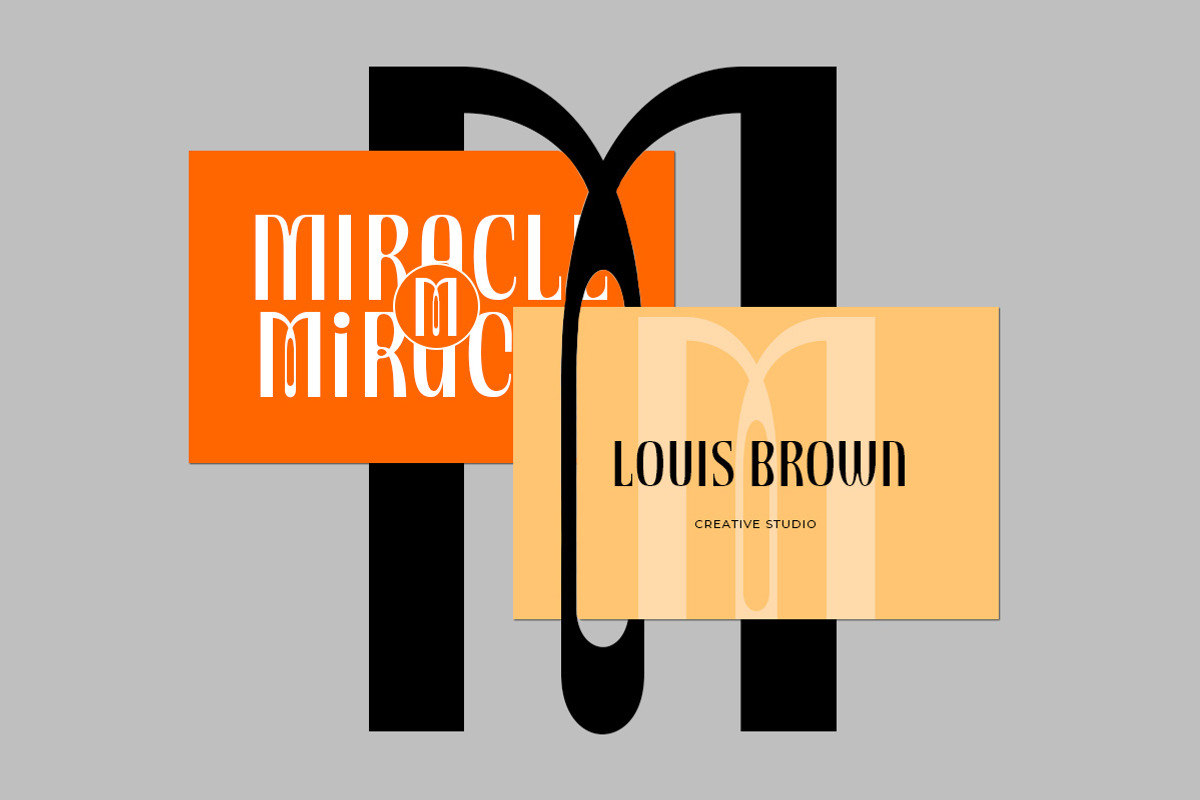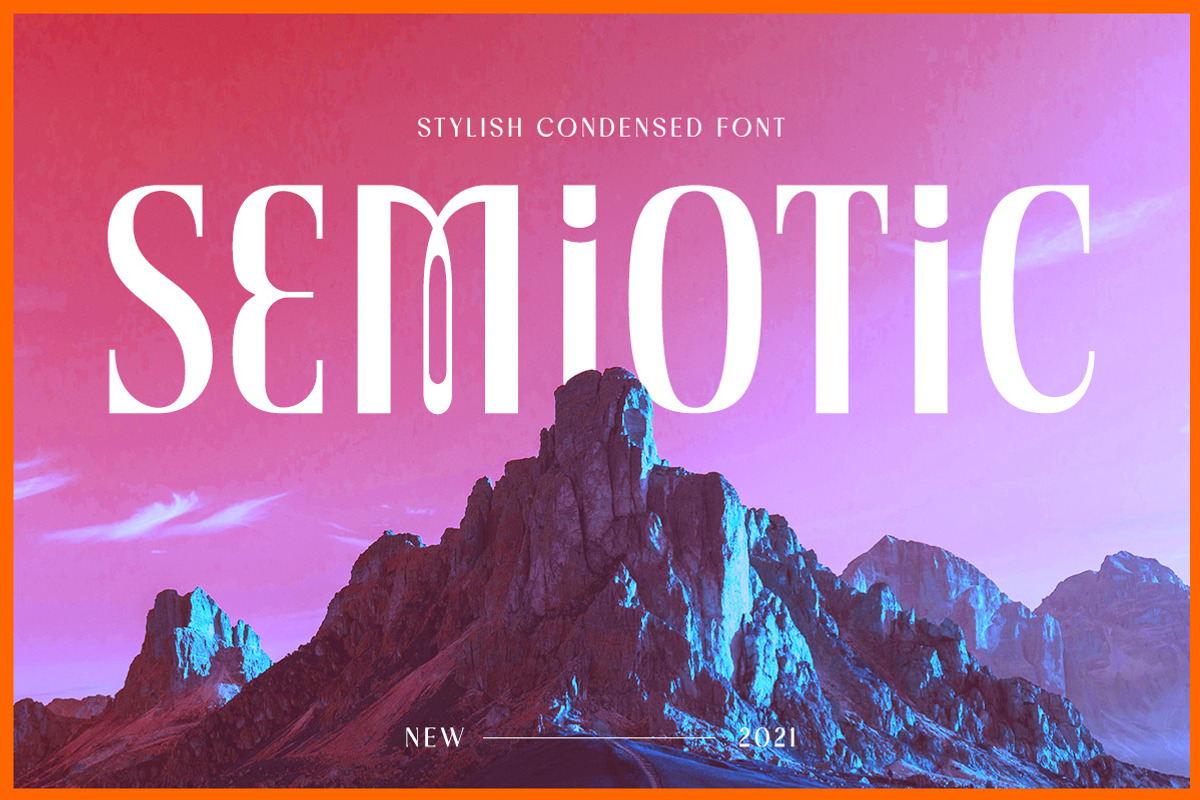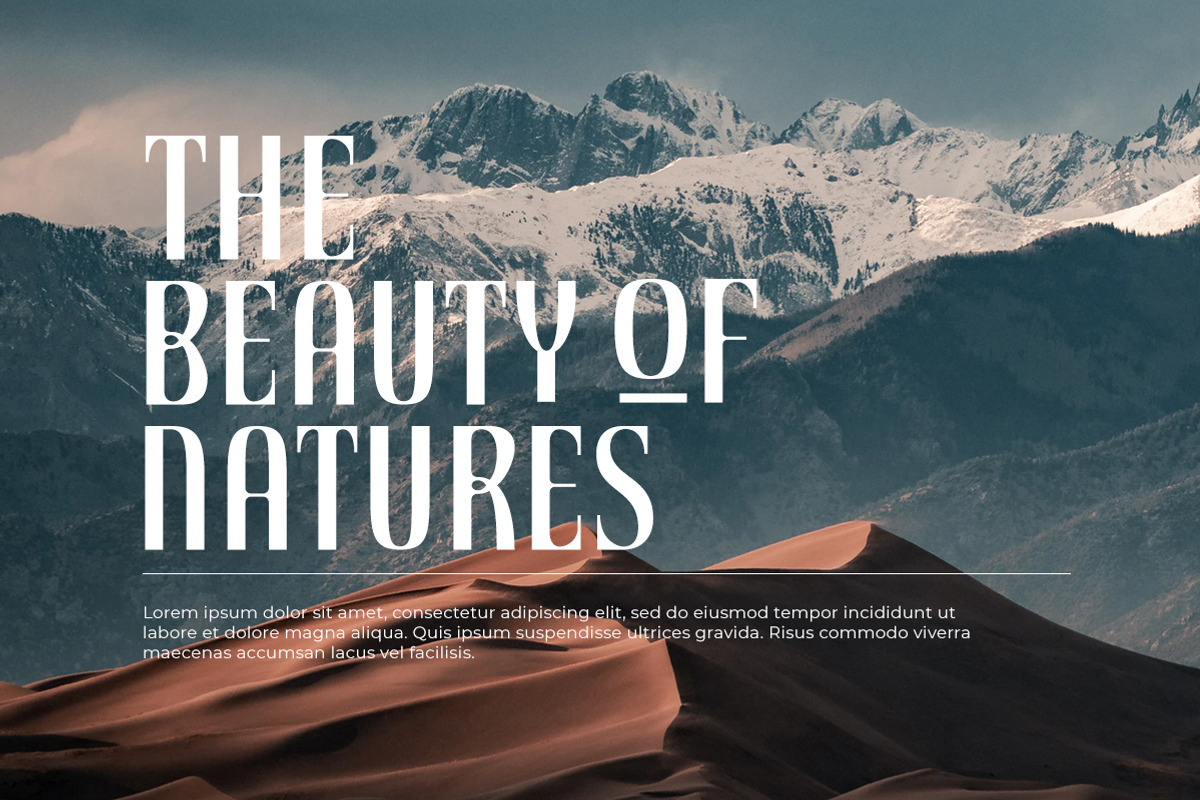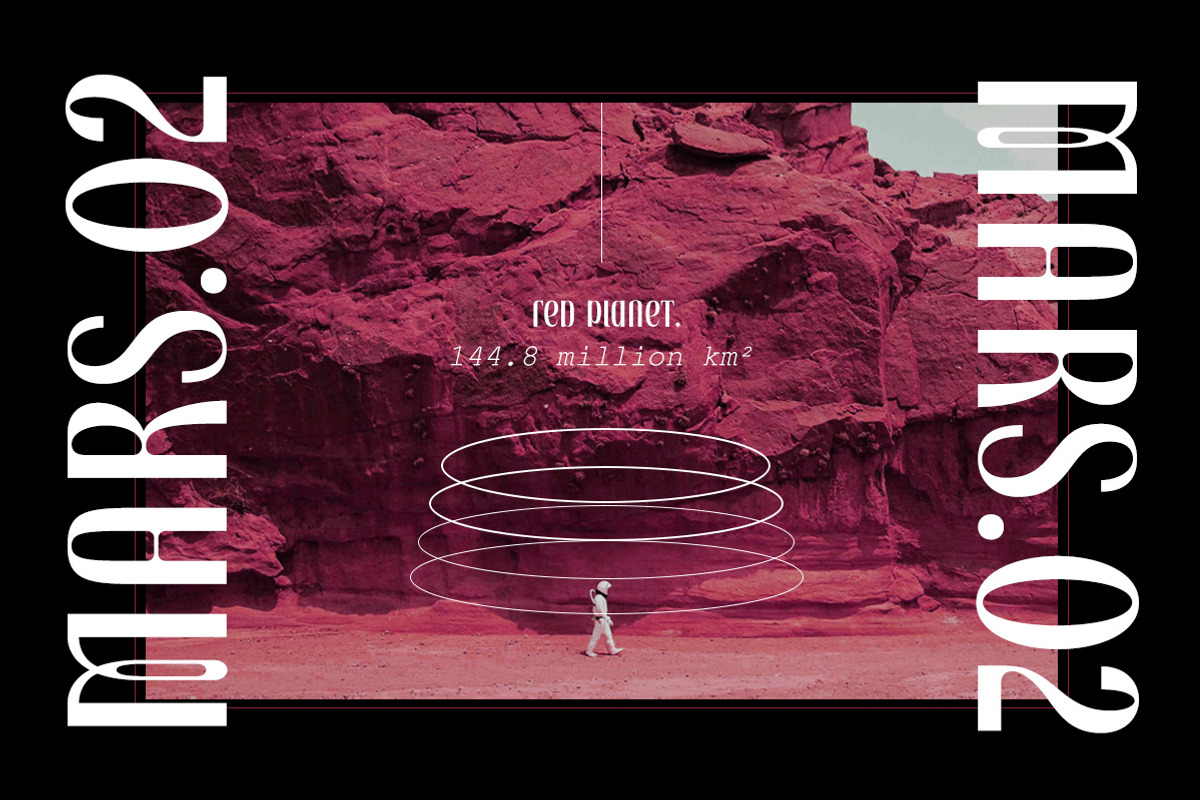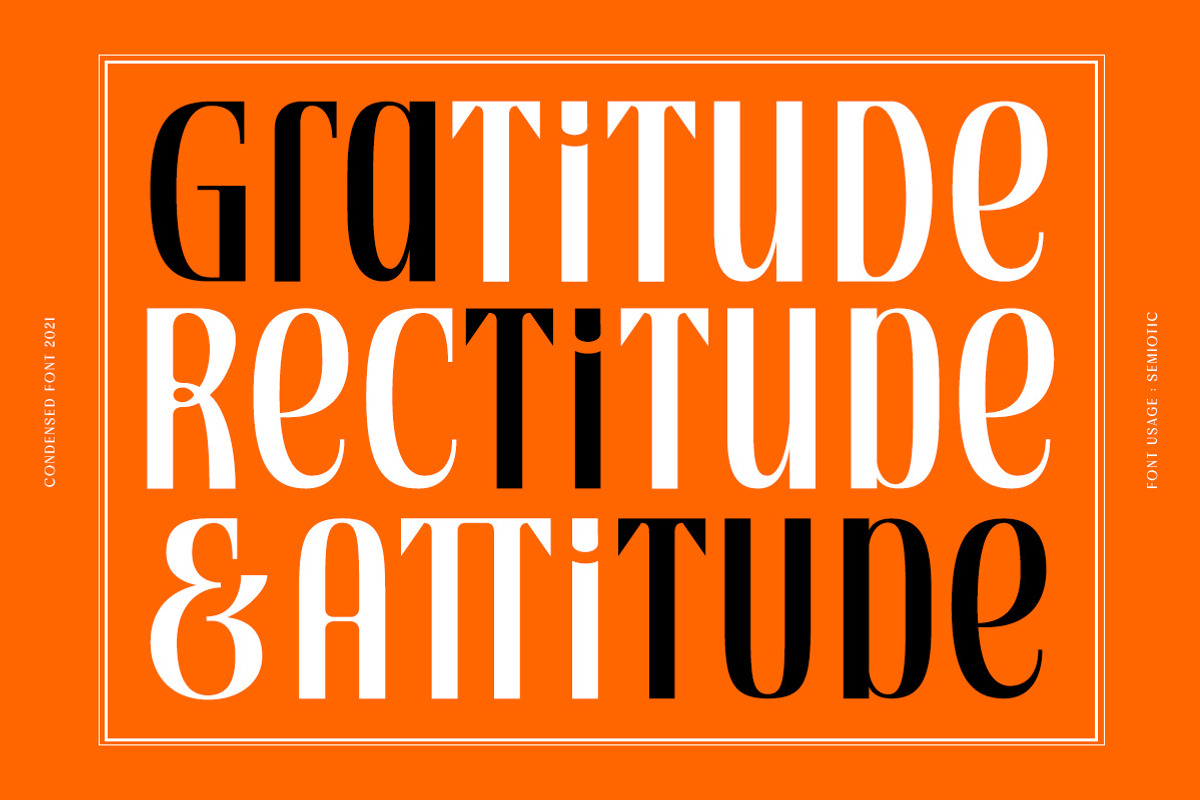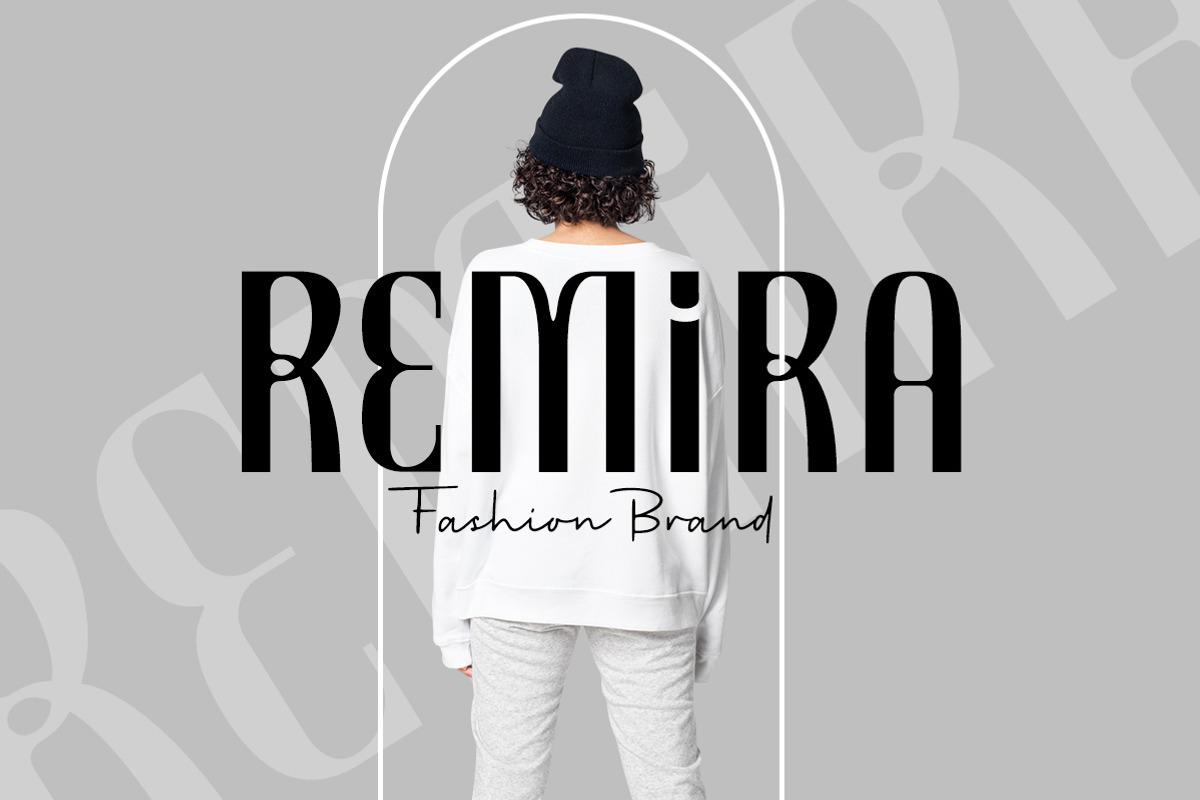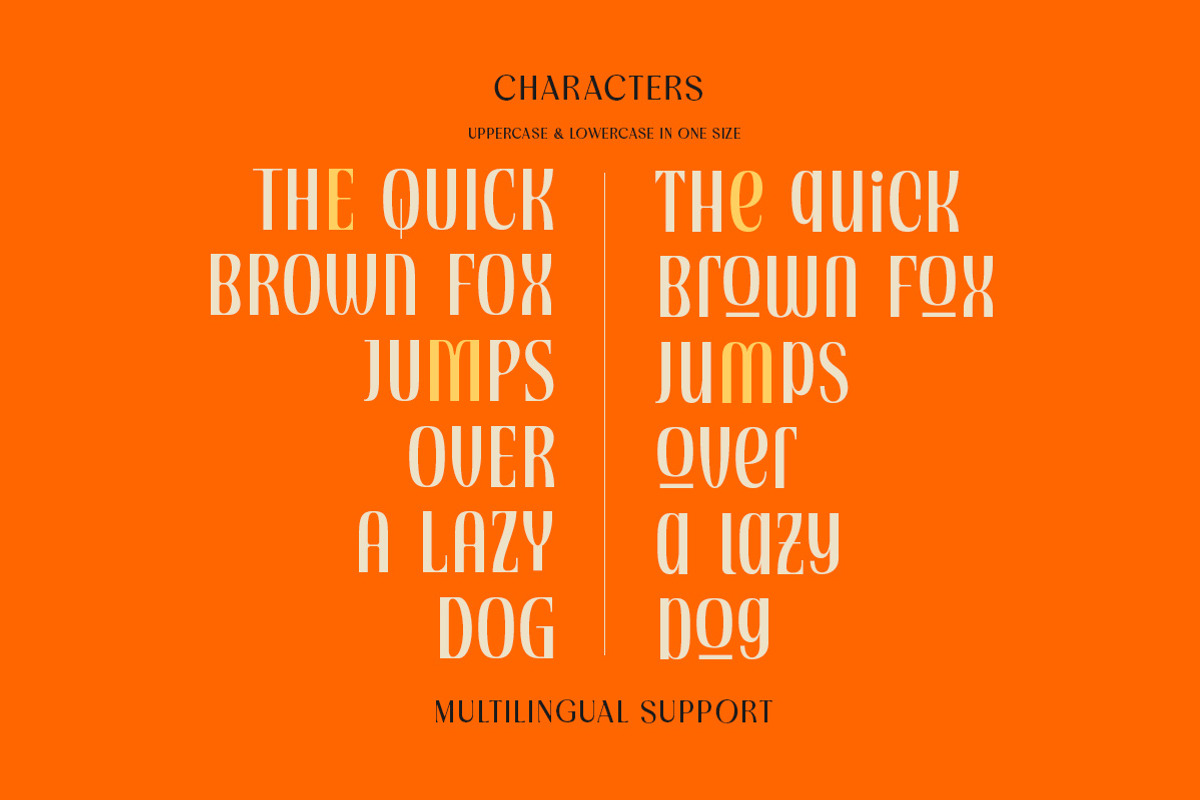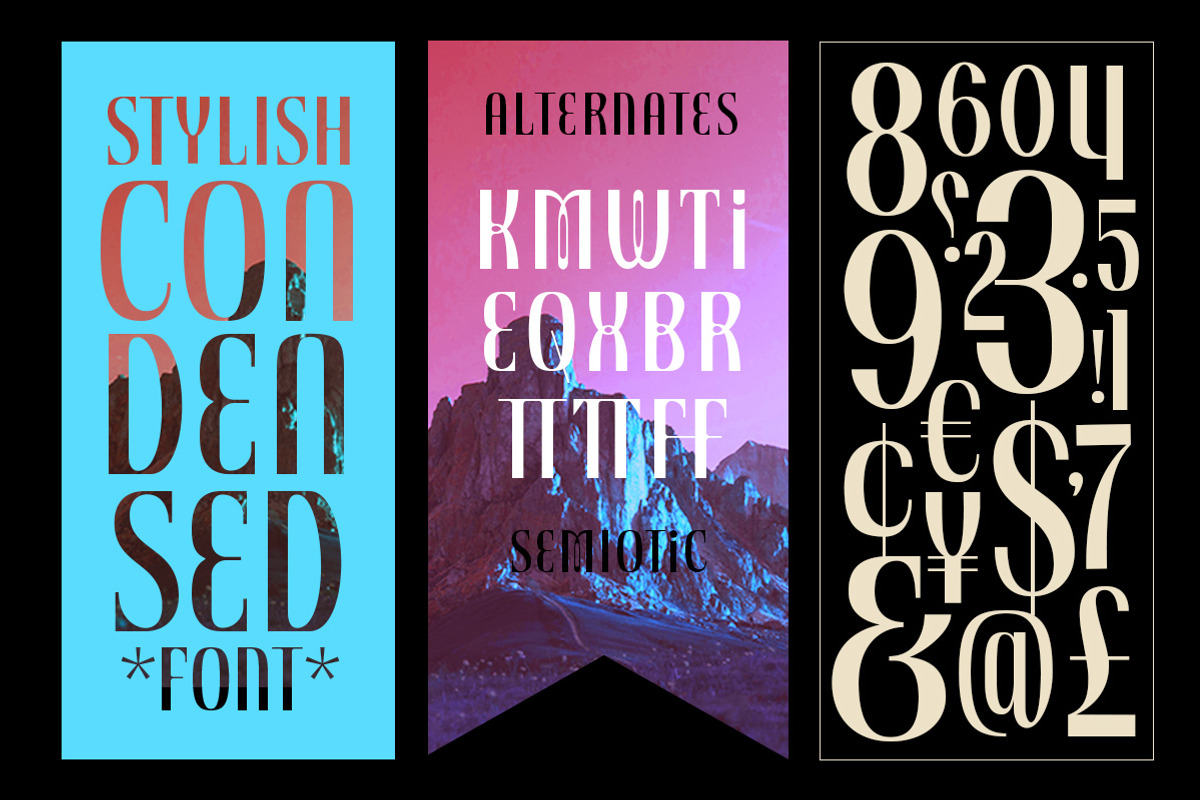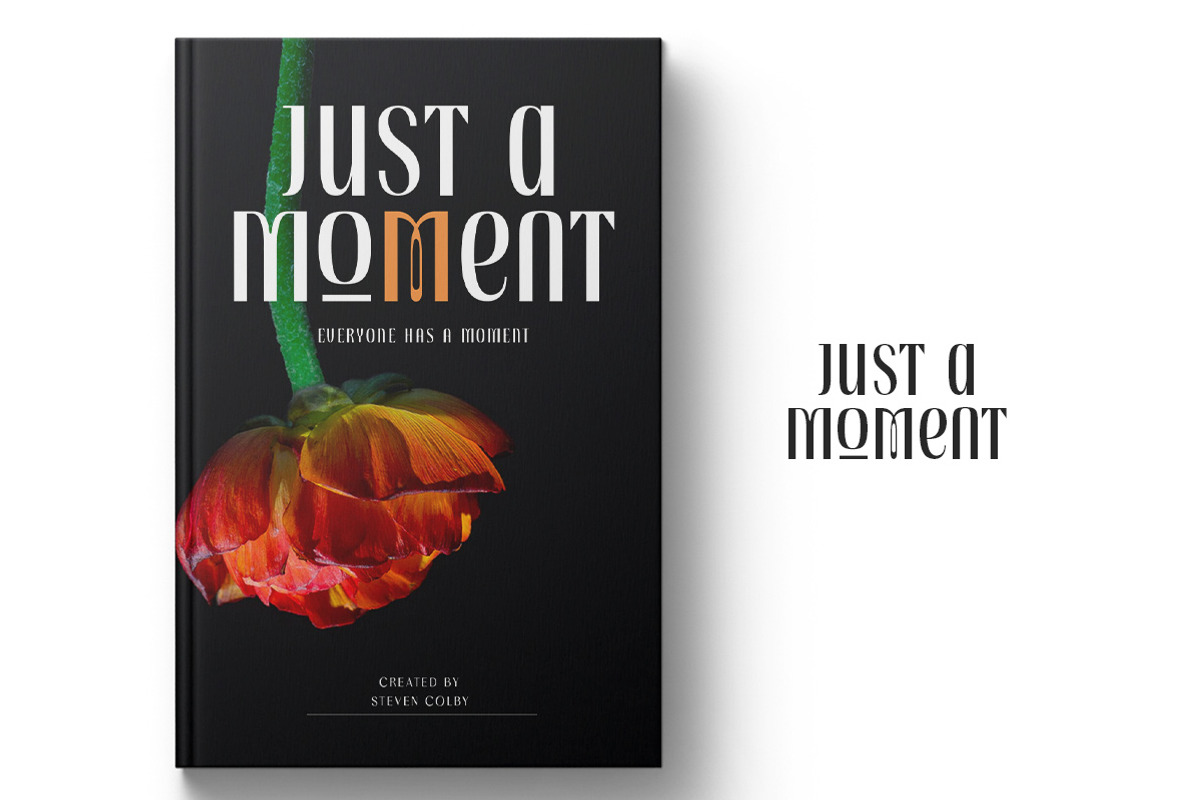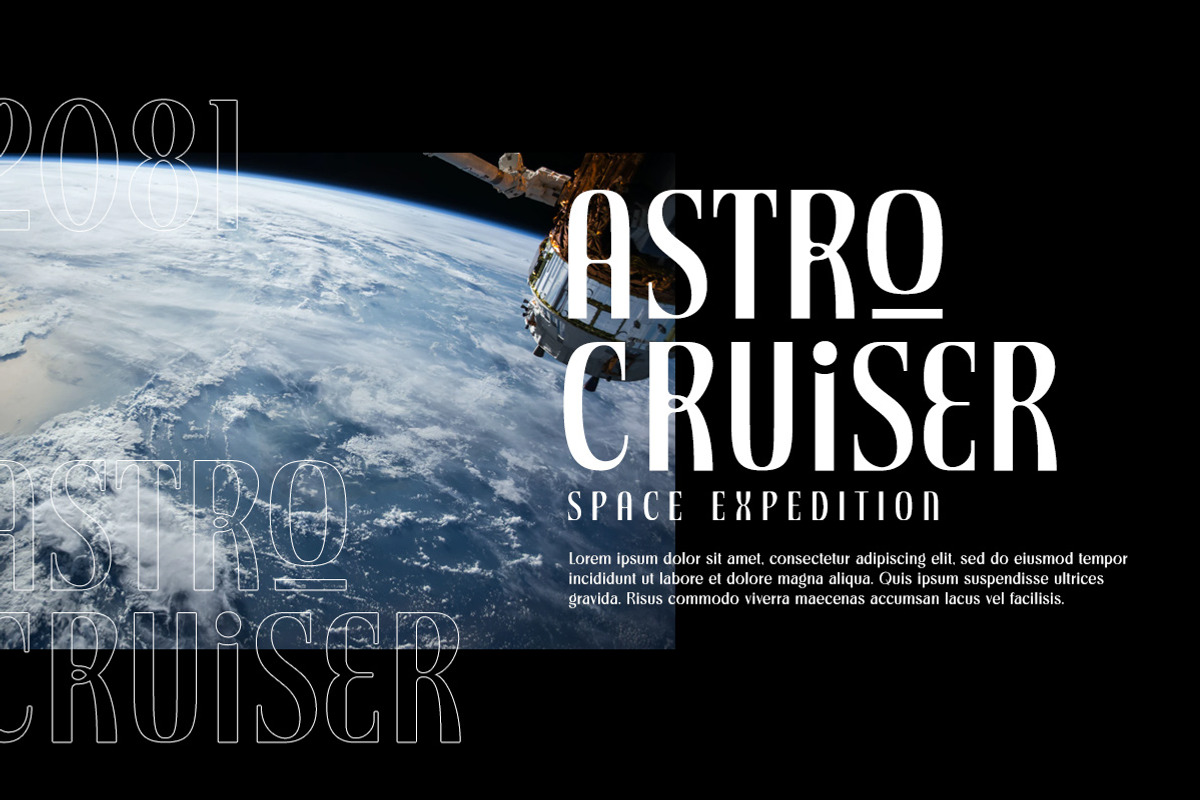
Semiotic - Stylish Condensed Font
Semiotic is a stylish condensed font. The uniqueness of this font is have the same size of uppercase and lowercase, so you can playaround to create a nice wording with this font. Very suitable for logo, headline, tittle, and the other various formal forms such as invitations, labels, logos, magazines, books, greeting / wedding cards, packaging, fashion, make up, stationery, novels, labels or any type of advertising purpose.
- uppercase and lowercase
- alternates